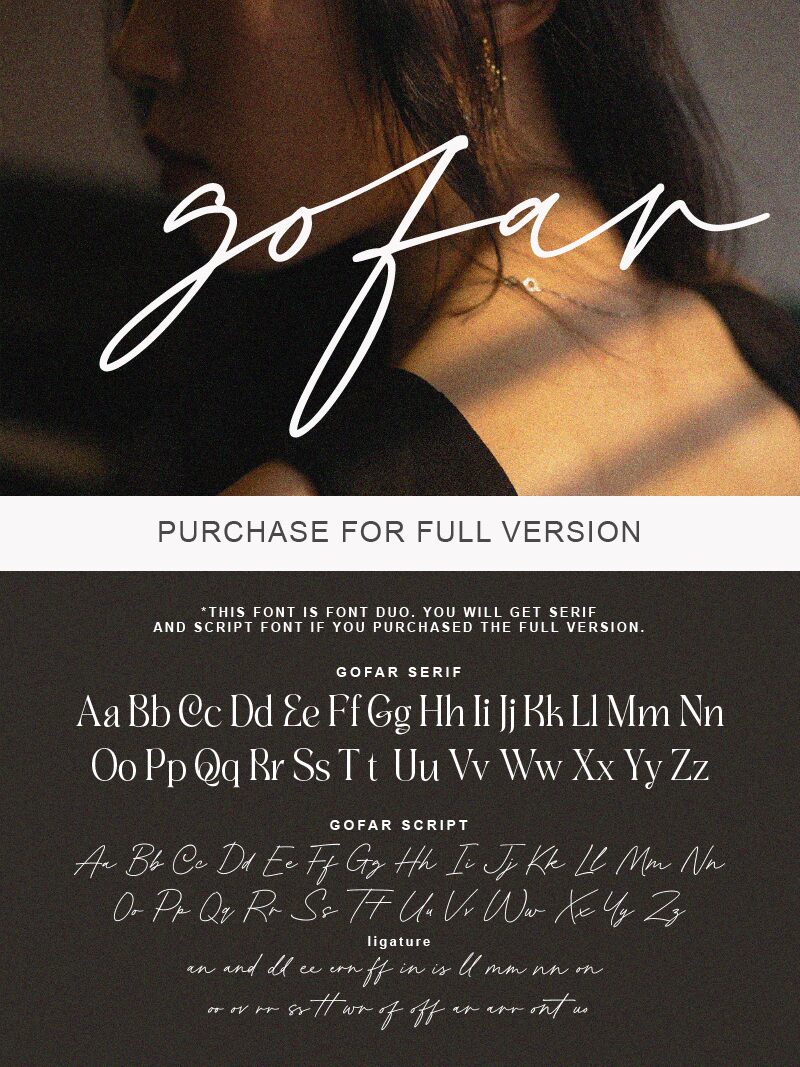
Gofar Script
Gofar Script is a stunning handwritten font created by the talented Ef Studio. Its extra-light weight gives it an airy quality that's perfect for projects that need a touch of elegance and refinement. This versatile typeface is ideal for creating wedding invitations, menus, greeting cards, or any design project that requires a sophisticated and personal touch. Gofar Script's delicate lines and fluid strokes make it an excellent choice for branding projects that need a unique and memorable logo or signature. Let Gofar Script add a touch of class to your next design project!
Features : Ligatures.
This font is a Font Duo. There are Serif and Script.